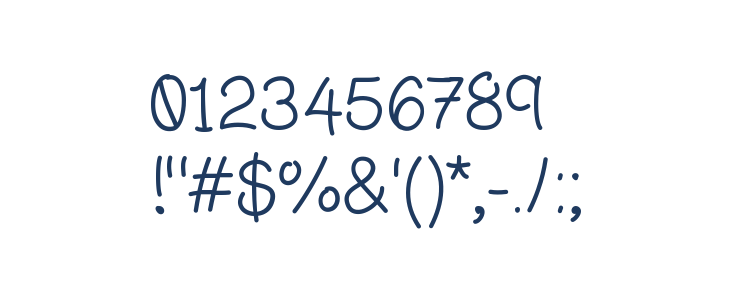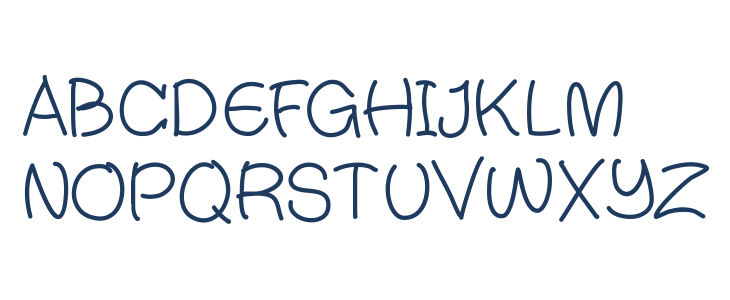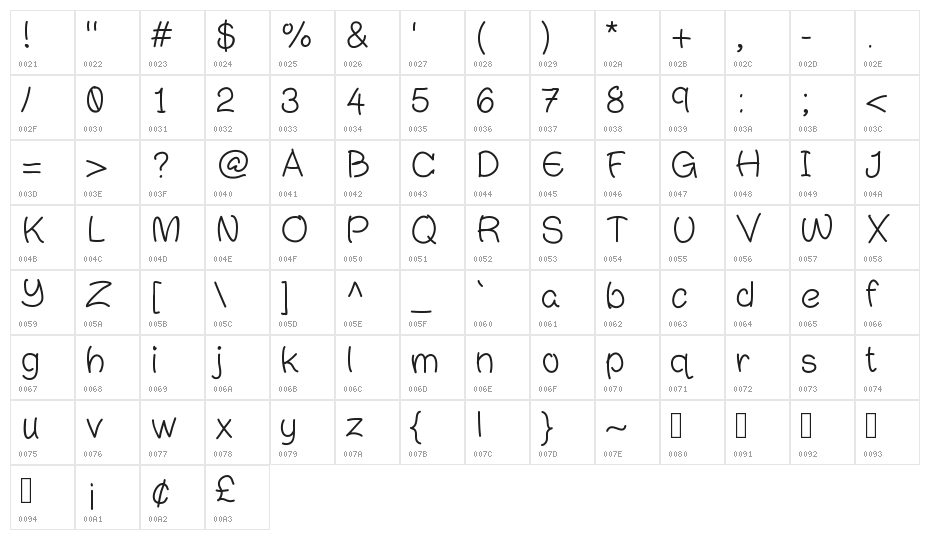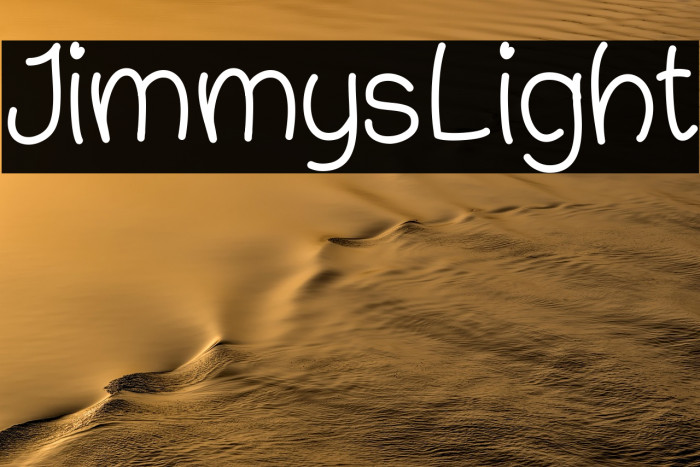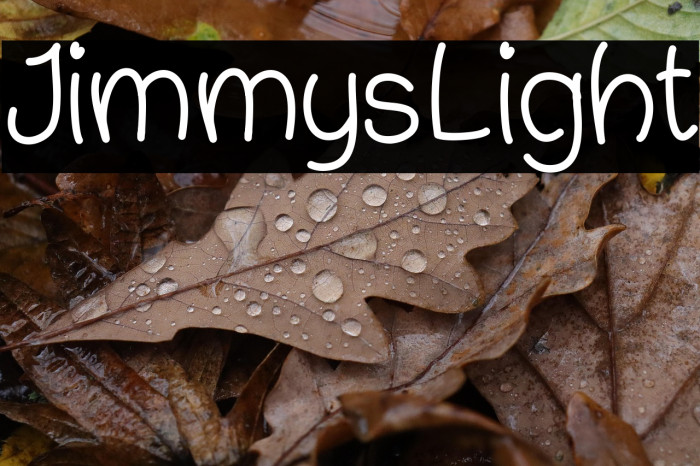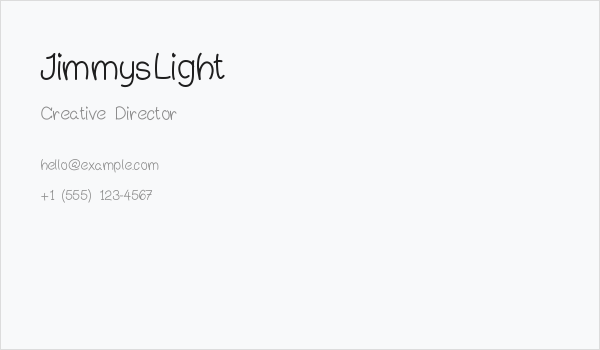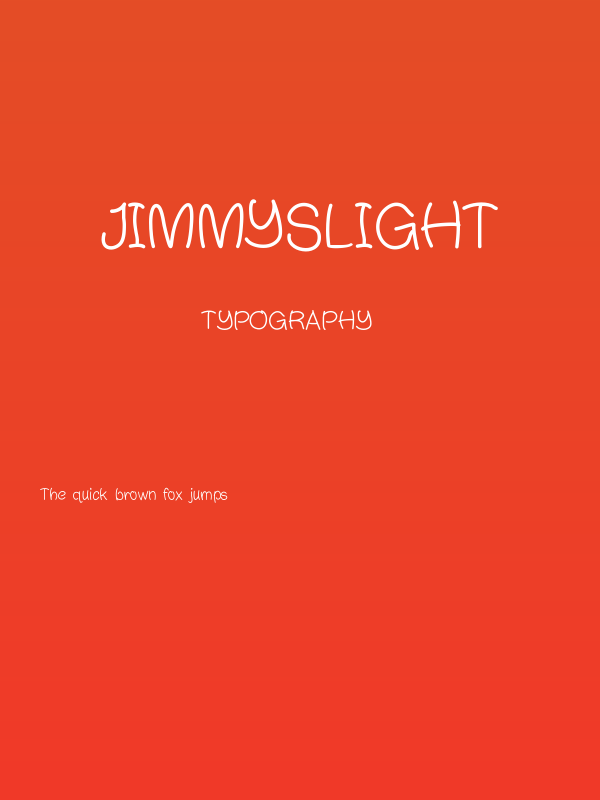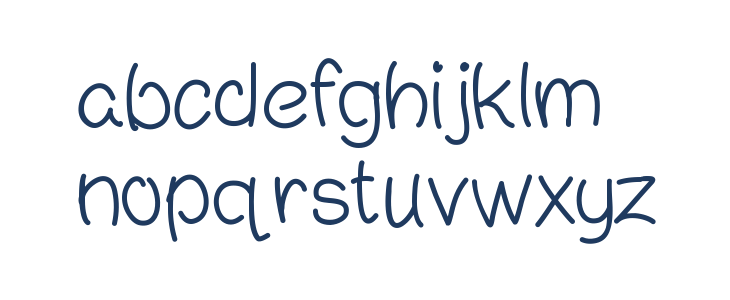
JimmysLight Font
JimmysLight Description
A playful, rounded handwritten style with consistent stroke width and informal, friendly character shapes. Letters are slightly irregular, mimicking natural handwriting, with open counters and smooth curves.
| Overall Style | Playful, Casual, Friendly |
| Use Case | Headlines, Short text, Informal notes, Branding |
| Proposed Projects | Children's books, greeting cards, informal invitations, educational materials, playful branding. |